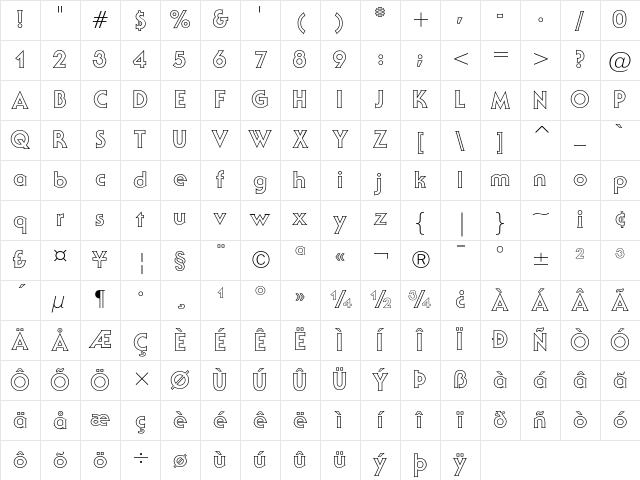
Complete ITC Serif Gothic Bold Outline glyph index. Displaying only characters natively supported by ITC Serif Gothic Bold Outline font.
ITC Serif Gothic is built around its visual character rather than neutral utility - its distinctive forms are designed to make an impression at display sizes. Its bold stroke weight gives it real presence on the page.
Font Pairing: Pair with a clean neutral sans-serif for body copy to let ITC Serif Gothic's character lead without overwhelming the composition.
Pro Tip: Use ITC Serif Gothic exclusively at display sizes - it was designed to be seen, not read at length. Let a neutral companion handle body copy.